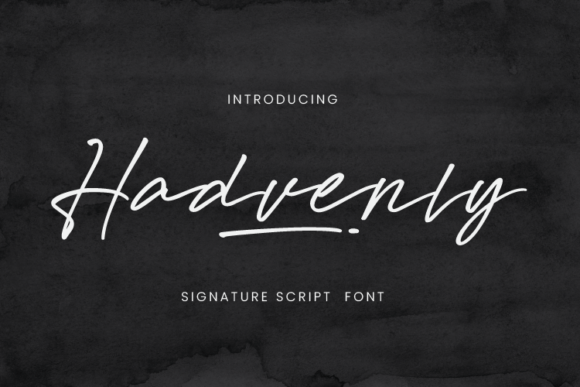
Step into the world of Hadvenly, a font that dances with sophistication and elegance. With its signature script style, Hadvenly will bring life to your designs, adding a personal and authentic touch that resonates with your audience.
Beyond its aesthetic charm, Hadvenly is a practical tool, PUA encoded for effortless access to glyphs and swashes. This user-friendly feature empowers you to explore your creativity without limits, crafting designs that captivate and inspire.
Picture the perfect wedding place cards, adorned with names penned in Hadvenly's enchanting script. Your guests will be enthralled by the delicate lines and graceful flourishes that adorn each card, creating a lasting impression of elegance and intimacy.
Or envision a social media campaign that stands out from the crowd, with captivating visuals designed using Hadvenly. Its unique charm will draw viewers in, creating a connection that resonates on a deeper level.
From invitations to branding, Hadvenly is the font that transforms the ordinary into the extraordinary. Its versatility knows no bounds, allowing you to breathe life into any design project with a touch of sophistication and artistry.